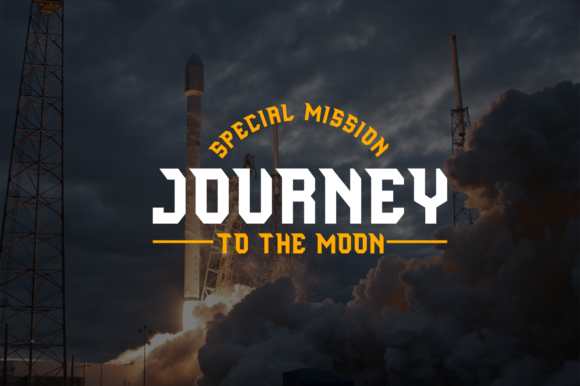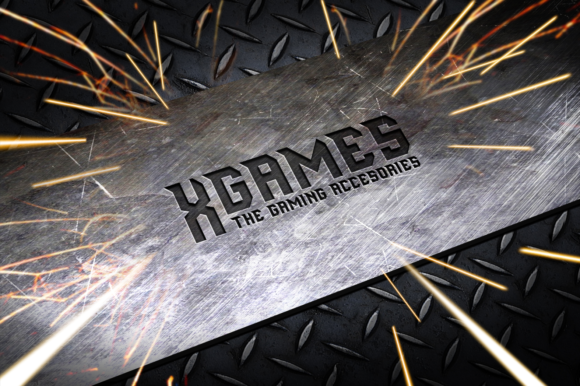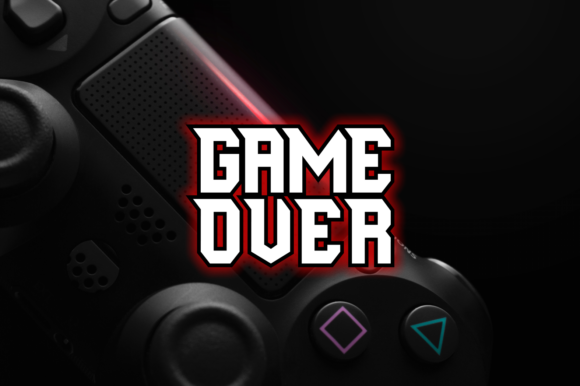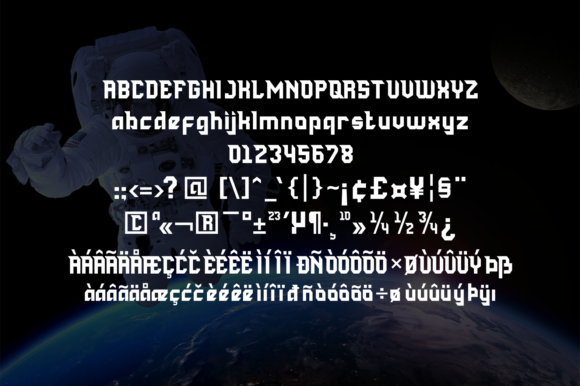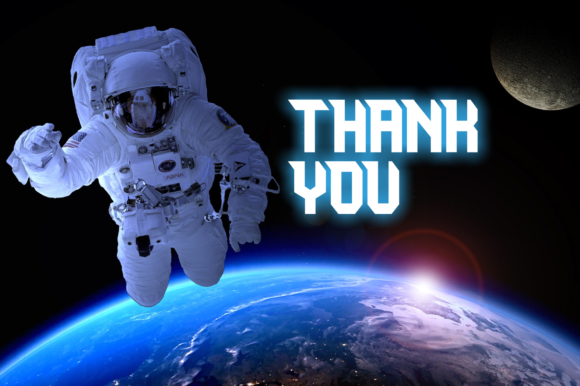
Introducing Big Space Font: The Ultimate Choice for Bold and Futuristic Designs
In the world of typography, fonts play a crucial role in conveying the message and tone of a design. For designers and crafters looking for a font that embodies a sporty, sci-fi, modern, bold, cutting-edge, and futuristic style, Big Space Font is the perfect choice. This font is specifically designed to make a statement, and its versatility makes it suitable for a wide range of applications, from titles and logos to quotes, posters, jersey numbers, and more.
The Design and Style of Big Space Font
Big Space Font boasts a unique and striking design that is sure to grab attention. Its sporty and sci-fi elements give it a dynamic and high-tech feel, making it perfect for designs that require a bold and modern aesthetic. The font’s futuristic style ensures that it stays ahead of the curve, making it an excellent choice for designers who want to create something truly cutting-edge.
Key Features of Big Space Font
- No Alternative Characters: Big Space Font is straightforward and uncomplicated, with no alternative characters to confuse or overwhelm users. This simplicity makes it accessible to designers of all skill levels.
- Versatility: Whether you’re working on a title, logo, quote, poster, or jersey number, Big Space Font is up to the task. Its bold and futuristic design ensures that it will make a statement in any context.
Applications of Big Space Font
Big Space Font’s versatility is one of its most significant advantages. Here are some of the many ways designers and crafters can use this font:
- Titles and Headings: Use Big Space Font to create bold and eye-catching titles and headings that demand attention.
- Logos: Create memorable and impactful logos that reflect the modern and futuristic style of Big Space Font.
- Quotes and Sayings: Use Big Space Font to add emphasis and style to quotes and sayings, making them perfect for posters, social media graphics, and more.
- Posters and Flyers: Big Space Font is ideal for creating striking posters and flyers that grab attention and convey a sense of excitement and urgency.
- Jersey Numbers and Sports Designs: The sporty style of Big Space Font makes it a natural fit for jersey numbers, sports logos, and other athletic designs.
Why Choose Big Space Font?
With so many fonts available, why choose Big Space Font? Here are a few compelling reasons:
- Unique Style: Big Space Font offers a distinctive and bold style that sets it apart from more traditional fonts.
- Easy to Use: The font’s simplicity and lack of complicated features make it easy to use, even for designers who are new to typography.
- Versatility: Big Space Font’s versatility ensures that it can be used in a wide range of applications, from digital designs to print materials.
Big Space Font is a game-changer for designers and crafters looking for a bold, modern, and futuristic font that makes a statement. Its sporty and sci-fi elements, combined with its ease of use and versatility, make it an excellent choice for a wide range of design projects. Whether you’re working on a title, logo, quote, poster, or jersey number, Big Space Font is the perfect choice for anyone looking to create something truly cutting-edge.